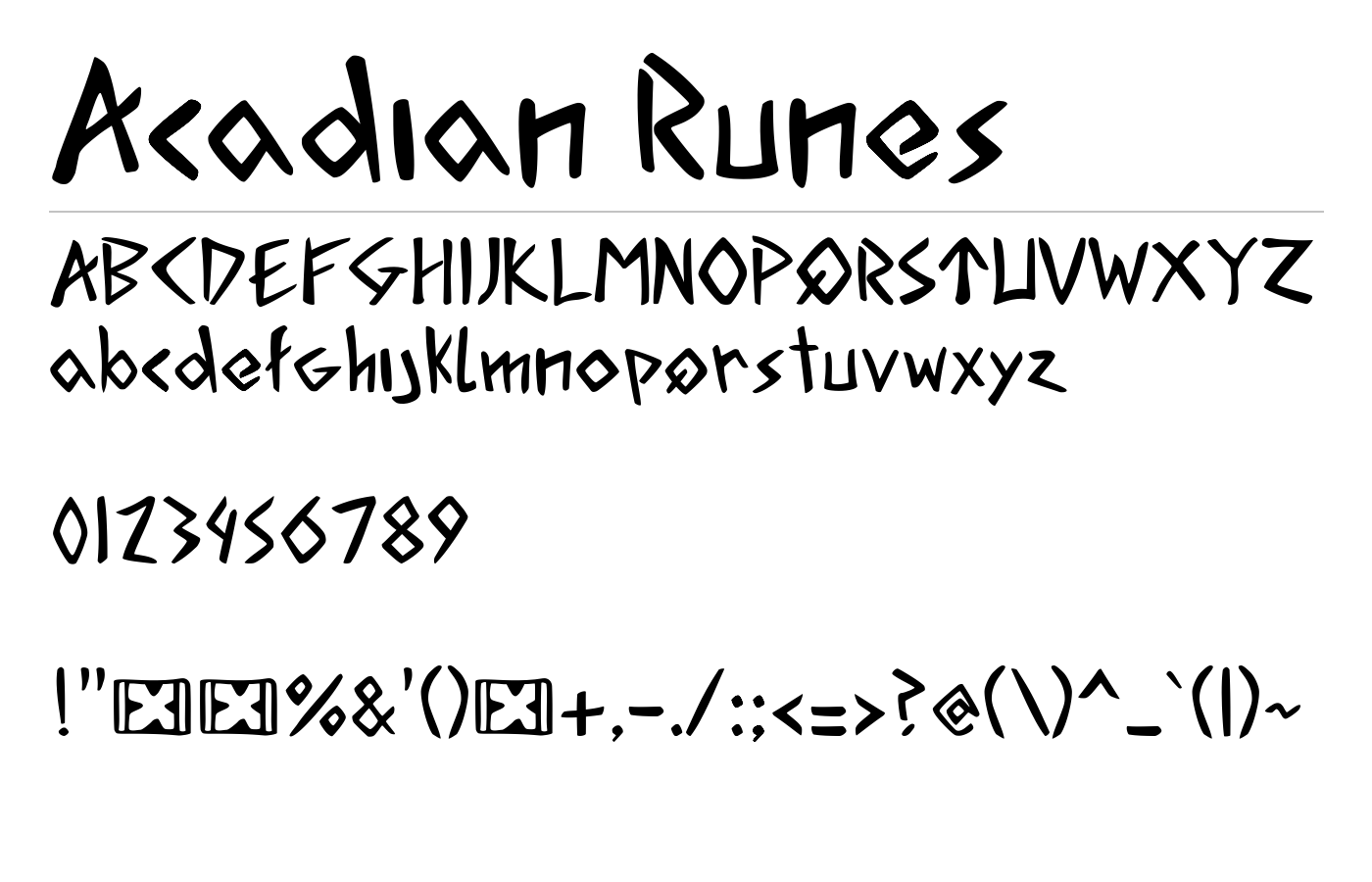
Acadian Runes is a playful and distinctive handwritten sans serif font inspired by ancient runic scripts, featuring irregular, angular strokes with medium weight and a casual, slightly uneven rhythm. Its quirky letterforms and sharp edges give it a mysterious, adventurous vibe, making it ideal for fantasy-themed designs, games, and creative branding that seeks an ancient or mystical feel. This font works well in logos, headlines, and decorative text where a unique, handcrafted look is desired.
Acadian Runes Font
About Acadian Runes Font
| Font family | Acadian Runes Font |
| Designer | Javier Ugarte del Corro |